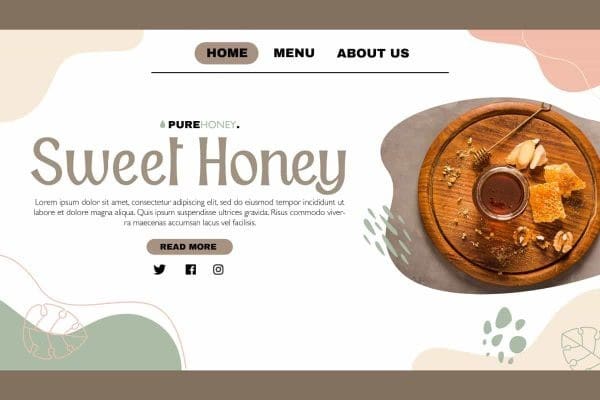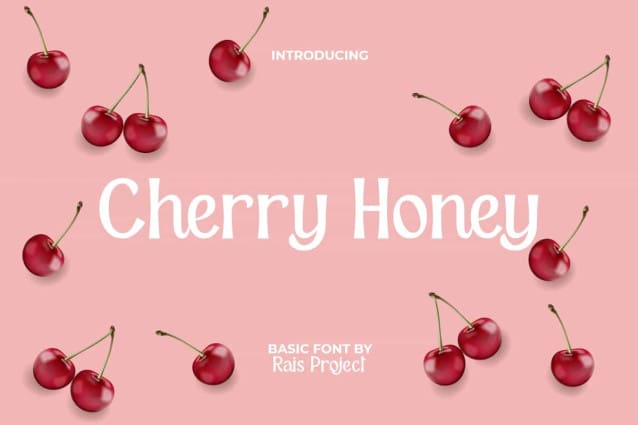
Cherry Honey Font
Cherry Honey Font is a stylish modern sans display font inspired from the sweet cherry. This is kind of font can fill the empty in the design with its simple but still attractive. It will be good for any designs, such as advertisement, brand image, business card, cover, custom design, flyer, invitation, label, menu, poster, product packaging, quote, signage, website page, and more!
Cherry Honey Font includes a full set of Uppercase and Lowercase Letters, Numerals, and large range of Punctuation. This attractive font will be suitable for various industries, such as accessories, art, cafe, crafting, event or festival, fashion, florist, marketing, movie, printing, publishing, restaurant, etc.